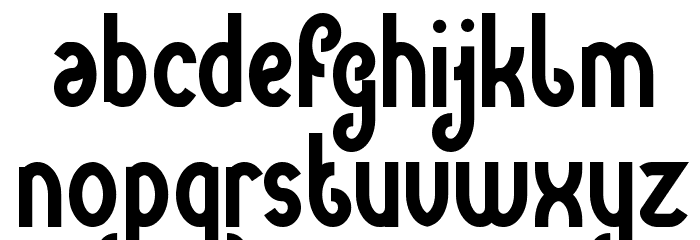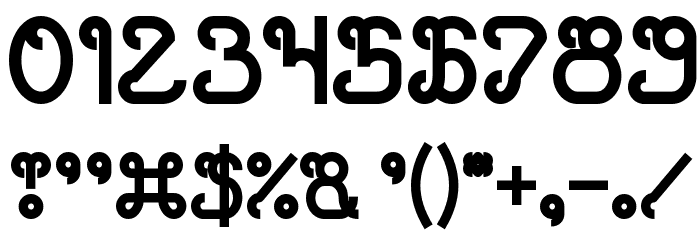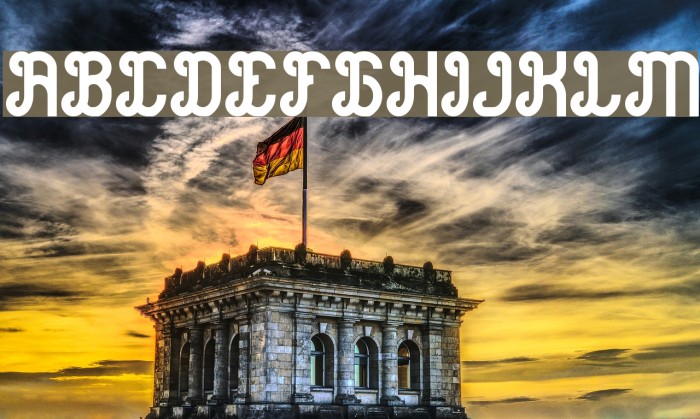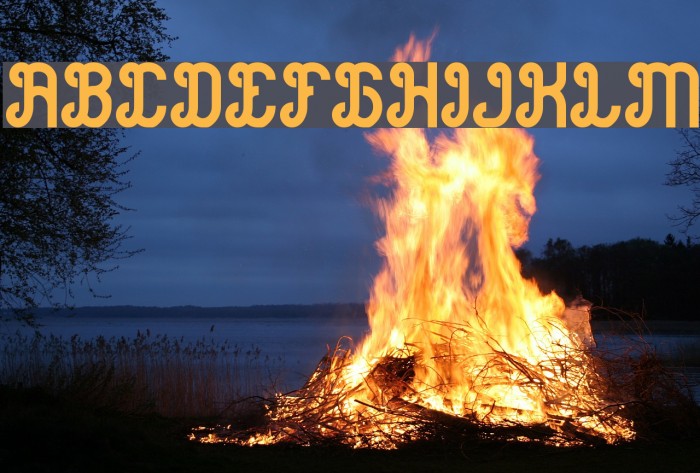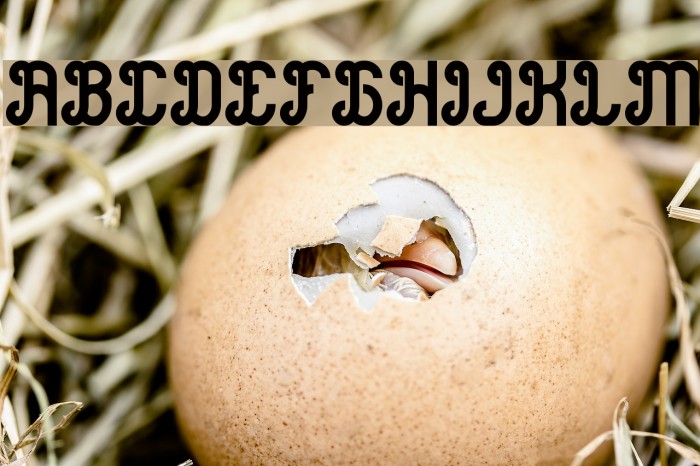
Green Avocado Bold Font
This font features a bold and playful design with a unique, rounded style. The characters are interconnected with a smooth flow, giving it a whimsical and decorative appearance. The uppercase letters have a distinct looped design, while the lowercase letters maintain a consistent rounded form. Numbers and special characters follow the same playful theme, making the font suitable for creative and informal projects. Its bold weight and decorative elements make it stand out, perfect for eye-catching designs.
A bold, playful, and decorative font with interconnected, rounded characters.
- Proposed Projects: Ideal for children's books, playful branding, posters, and creative invitations.